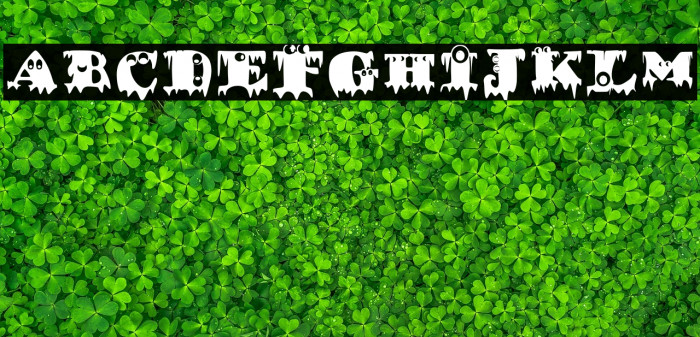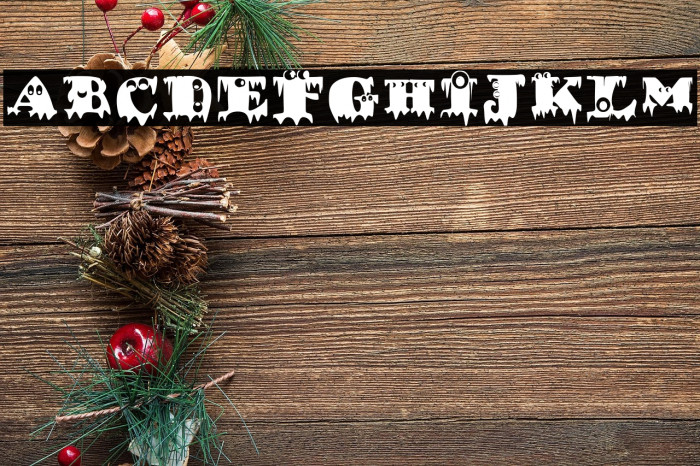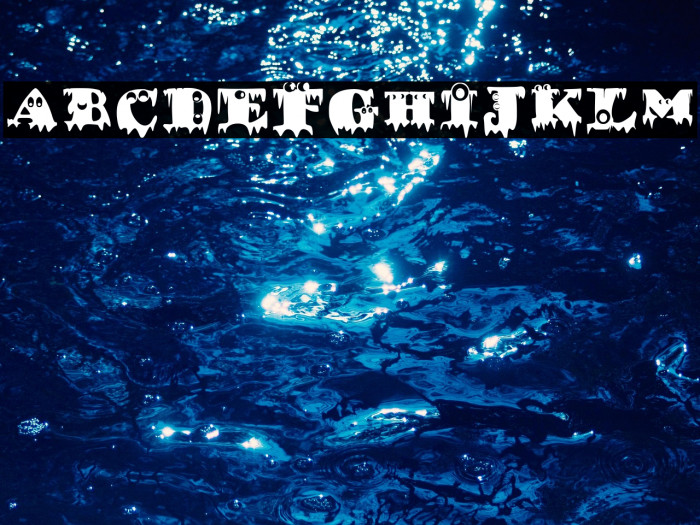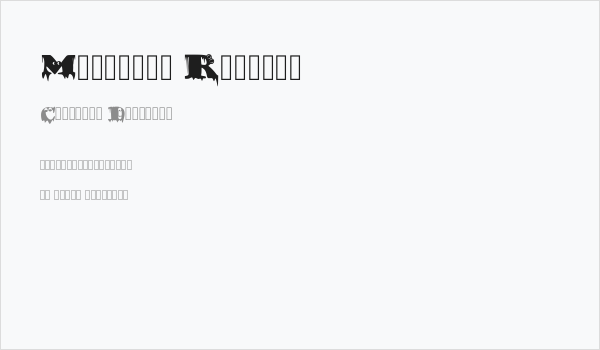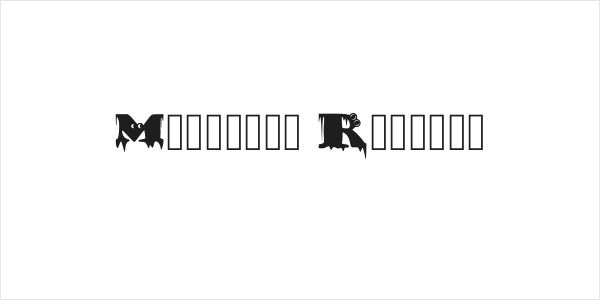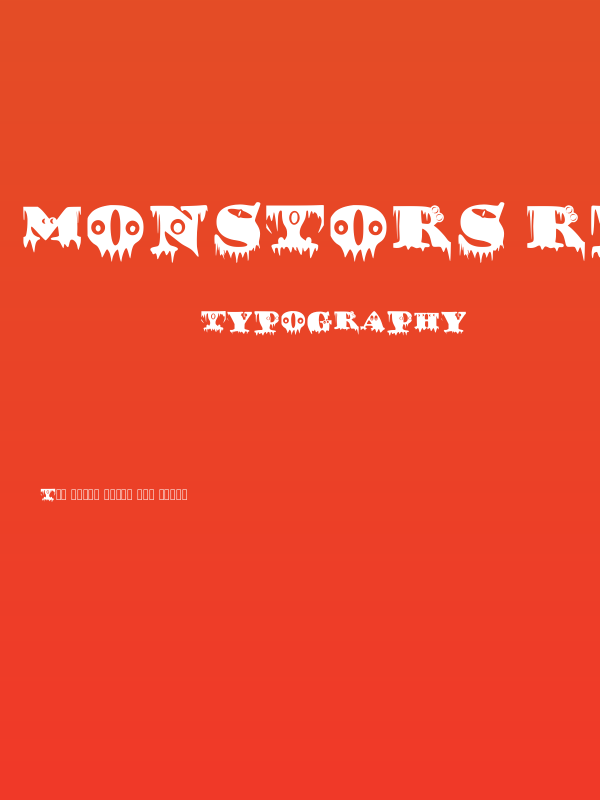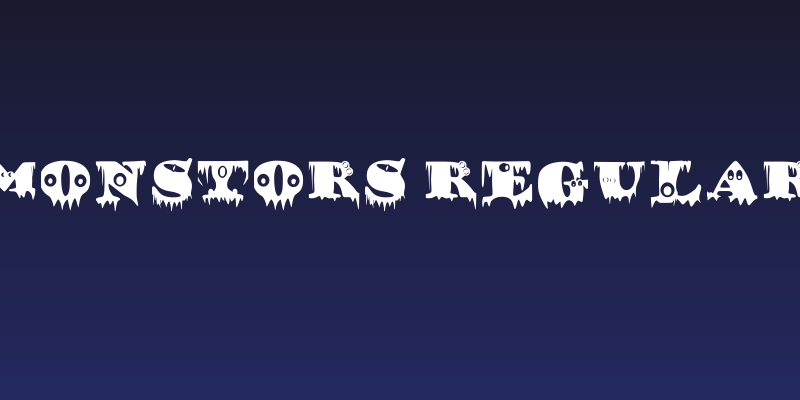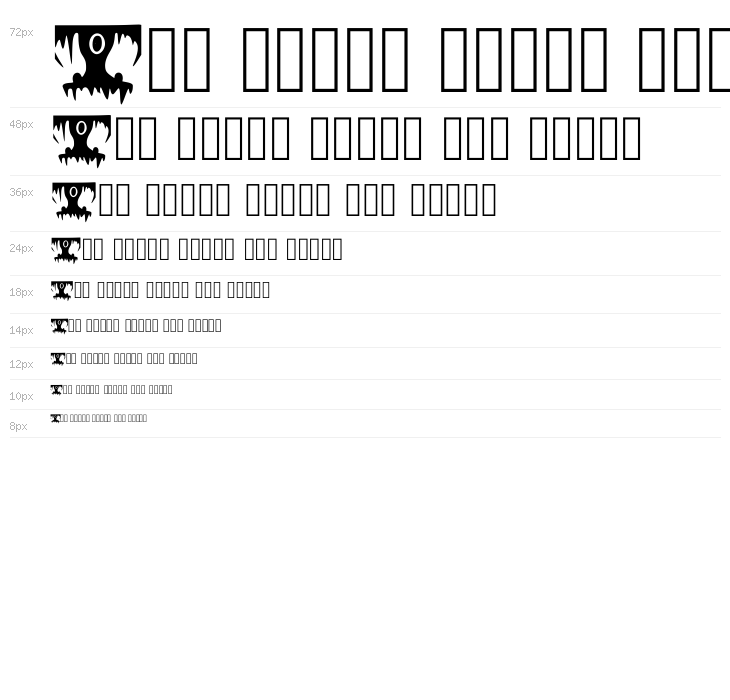
Monstors Regular Font
Monstors Regular Description
This font features a playful and spooky design, with each character incorporating elements reminiscent of monsters and Halloween themes. The letters are creatively adorned with eyes, fangs, and other eerie details, giving them a unique and whimsical appearance. The bold and decorative style makes it stand out, perfect for capturing attention in themed projects. The characters are well-spaced, ensuring readability despite their intricate designs. This font is ideal for projects that require a fun, yet slightly eerie touch.
Proposed ProjectsIdeal for Halloween invitations, themed party posters, children's book covers, and any project requiring a fun, spooky aesthetic.